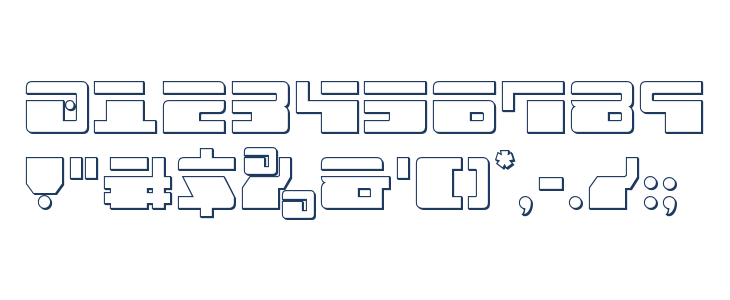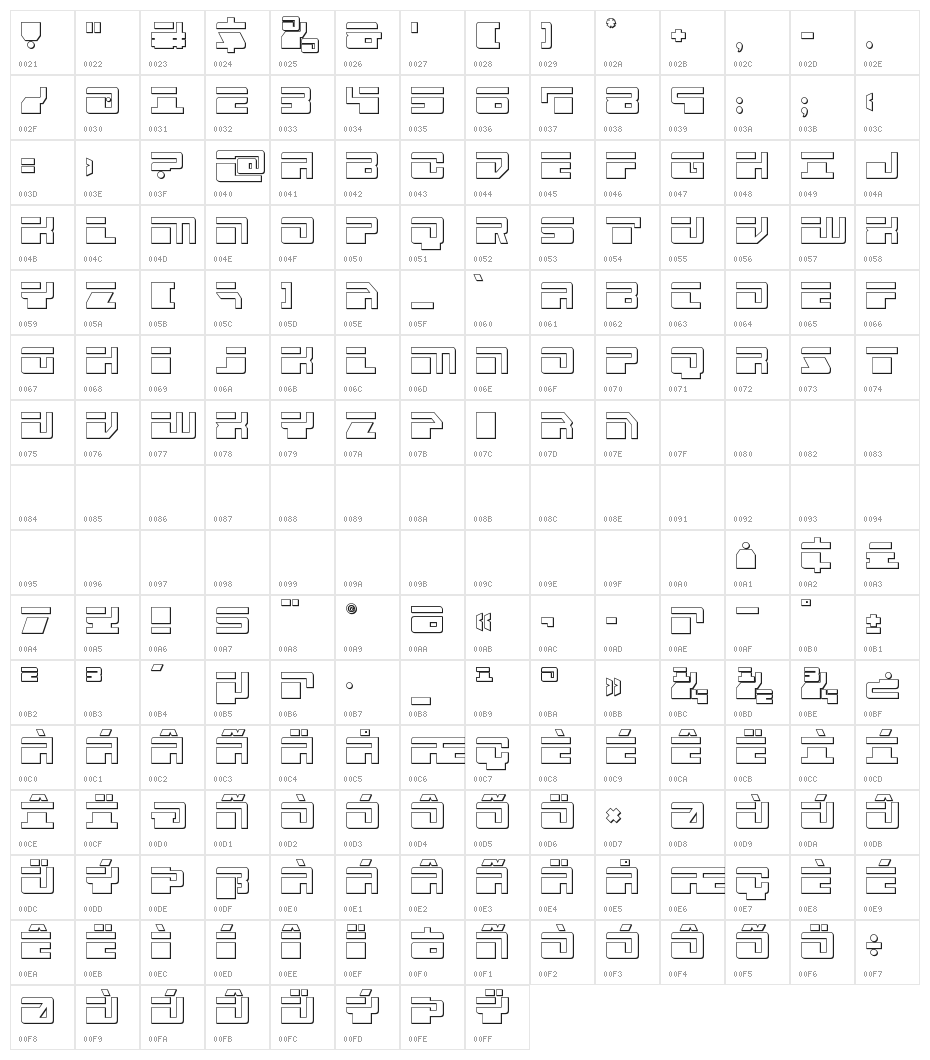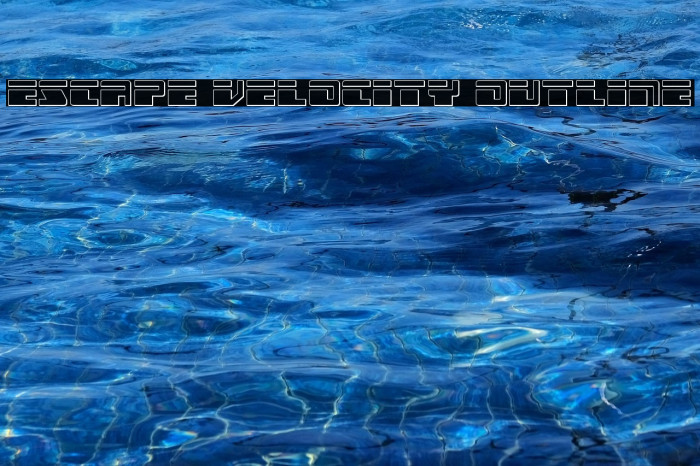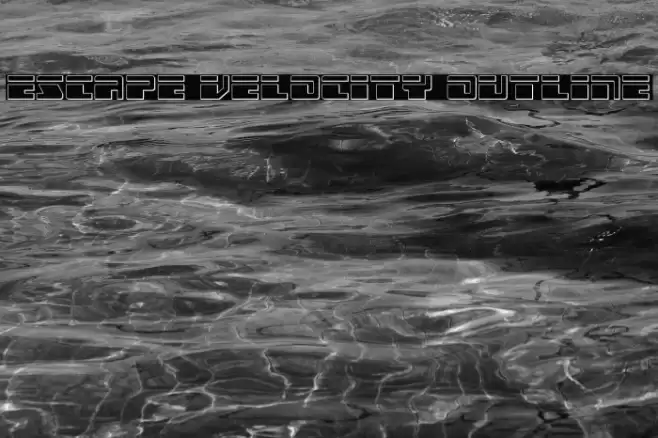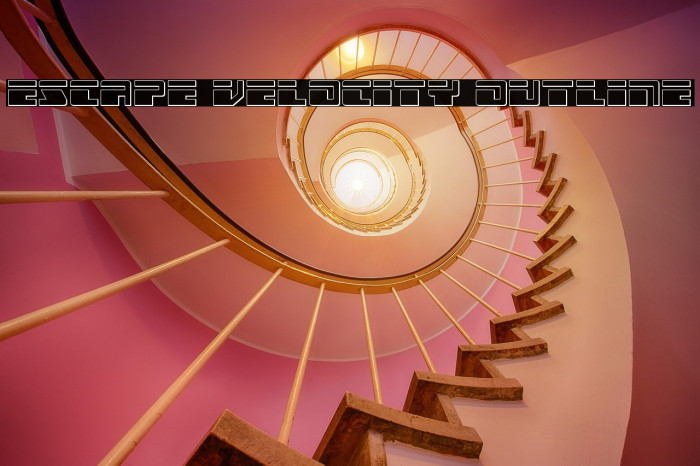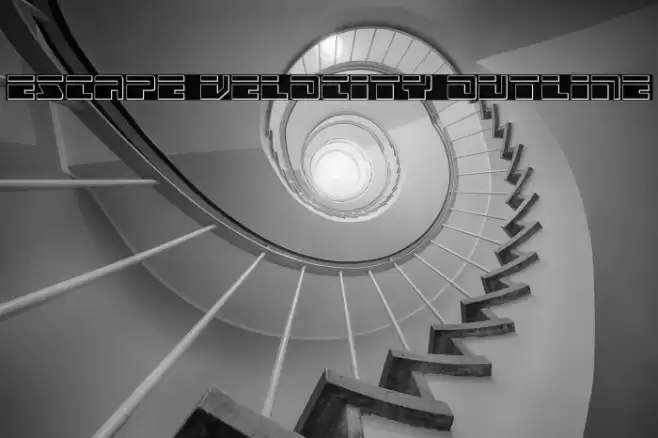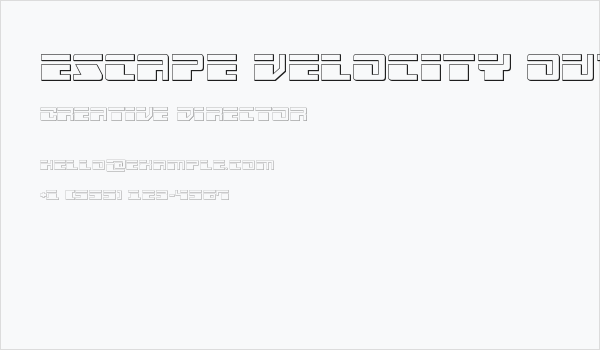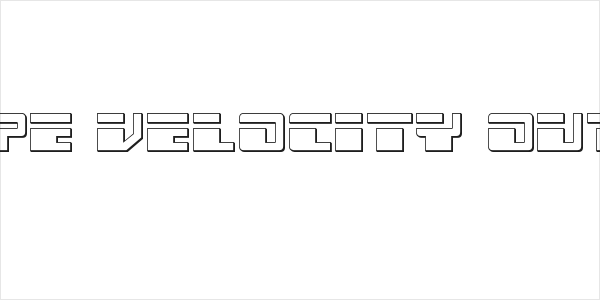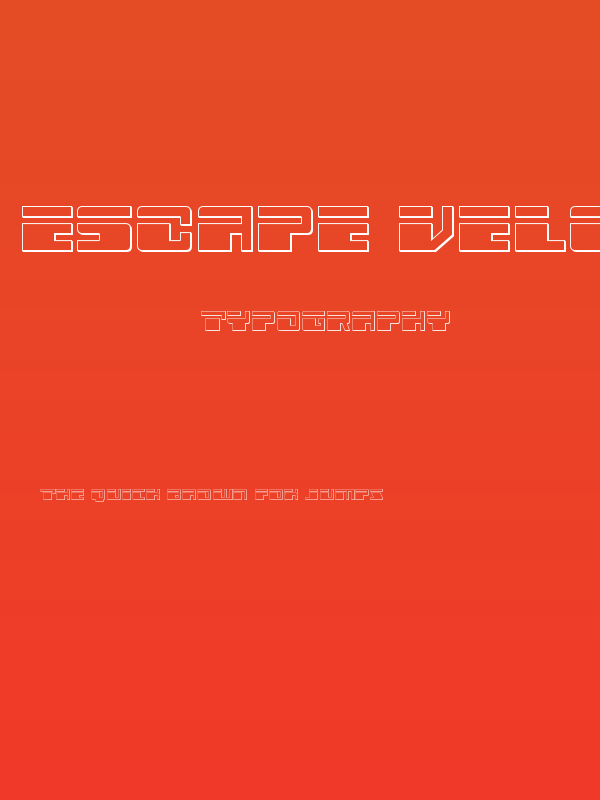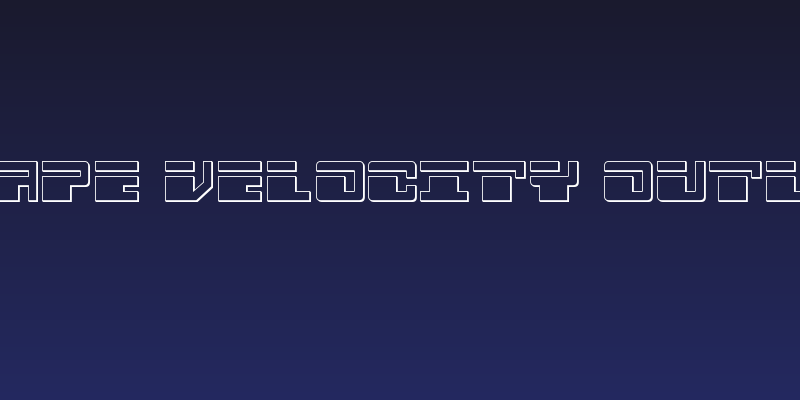
This font features a futuristic and geometric design with an outline style that gives it a distinct, tech-inspired appearance. The characters are constructed with sharp angles and straight lines, creating a sense of precision and modernity. The uppercase and lowercase letters maintain a consistent height, enhancing the uniformity of the typeface. The numerals and special characters follow the same design principles, ensuring a cohesive look across all elements. This font's unique style makes it ideal for projects that require a bold, eye-catching display.
| Proposed Projects | Ideal for sci-fi themed posters, technology branding, video game titles, and futuristic event invitations. |